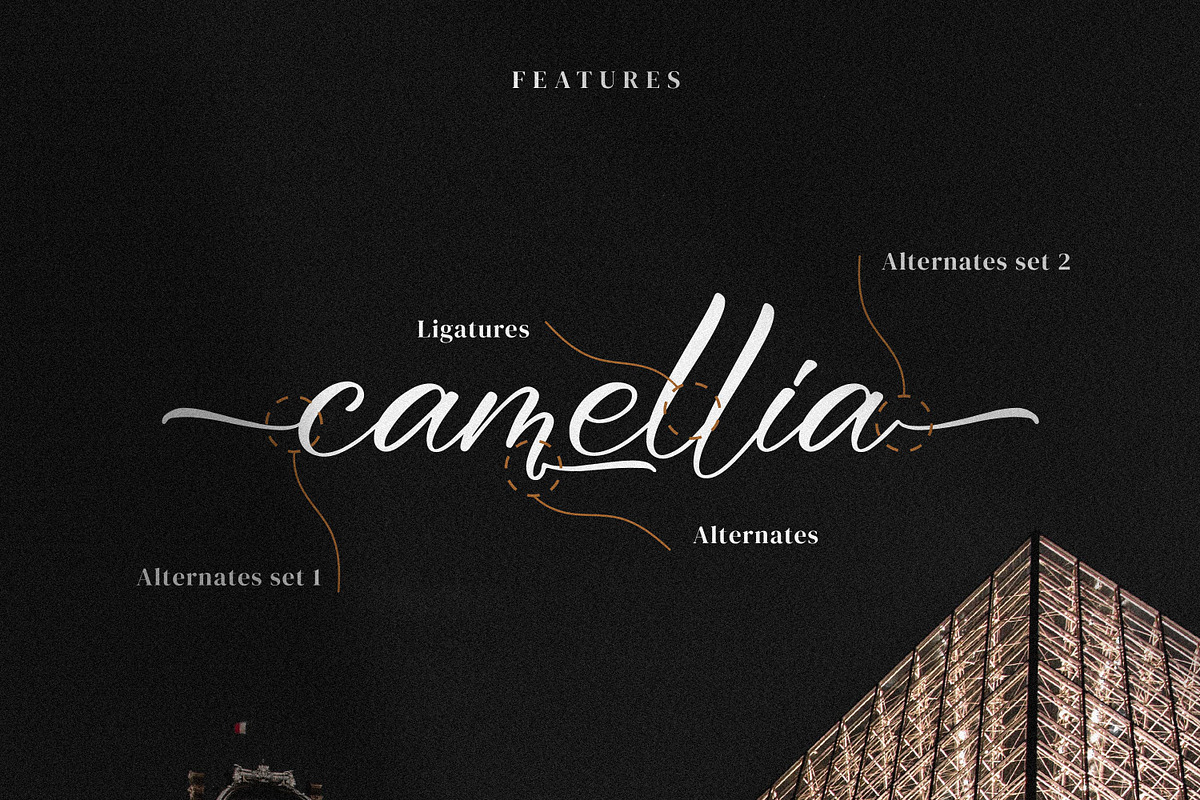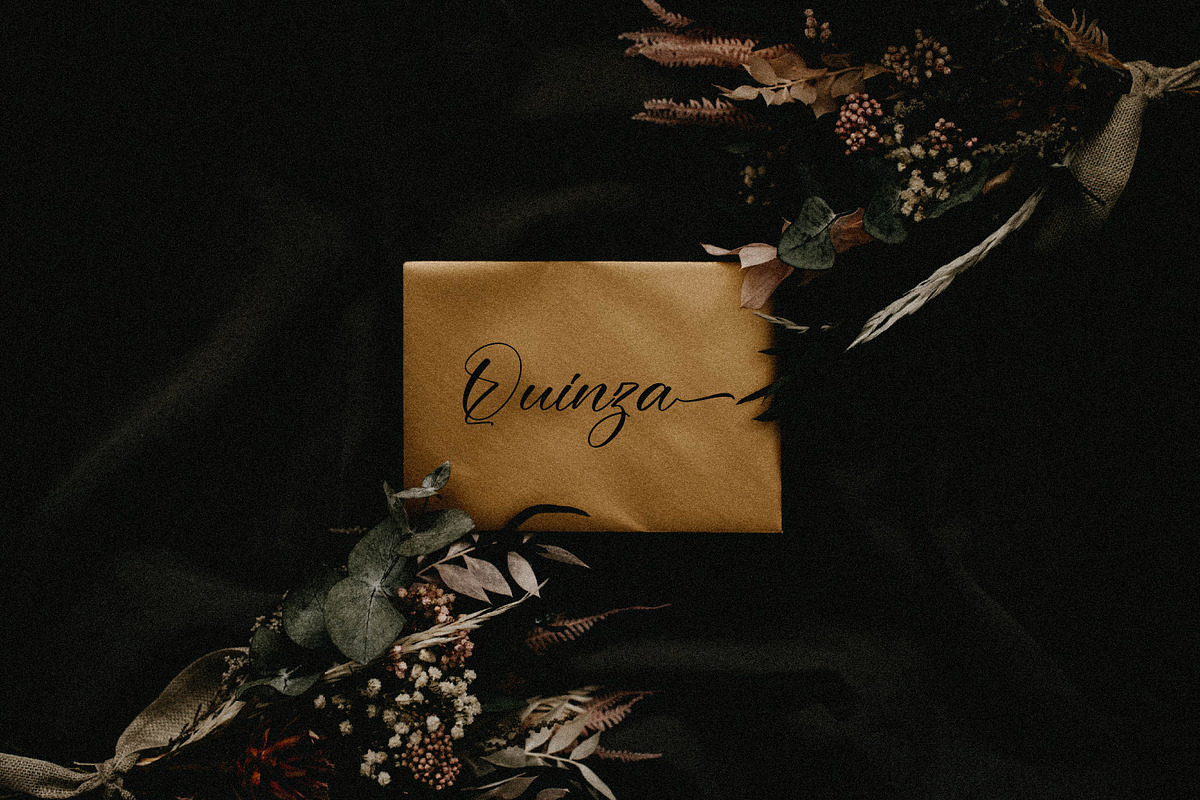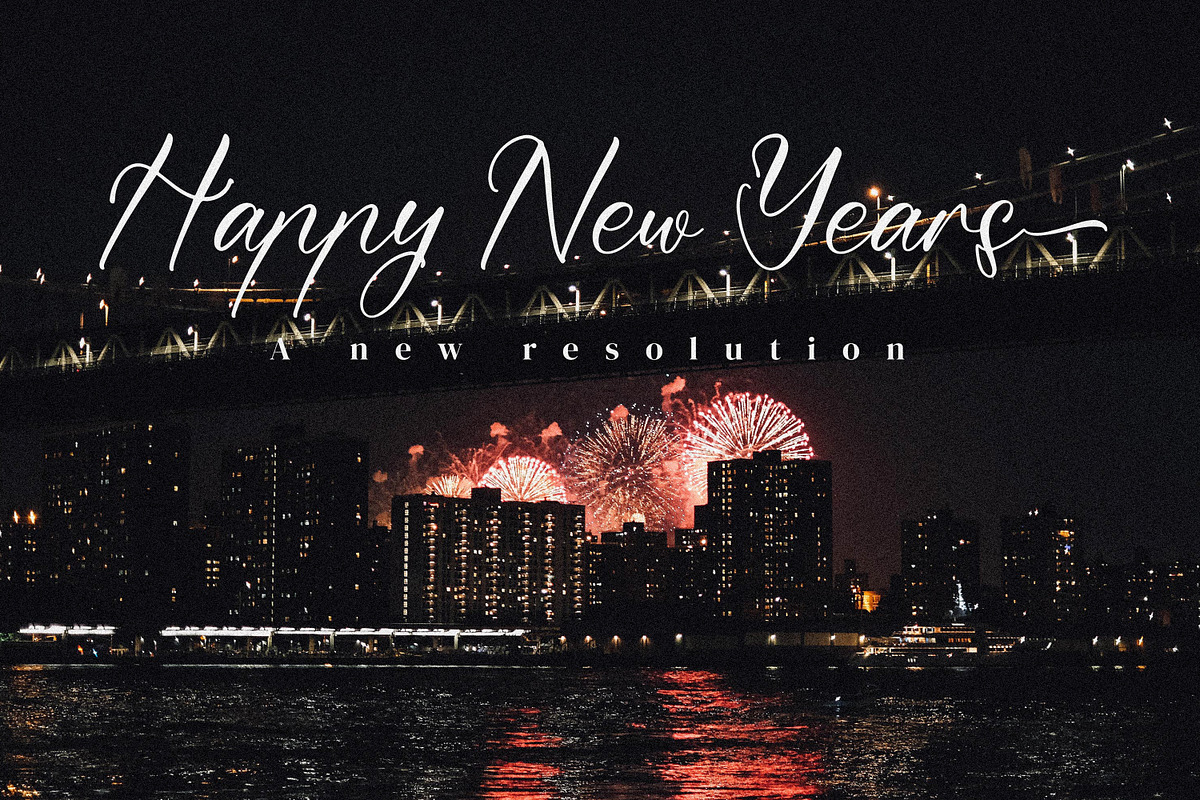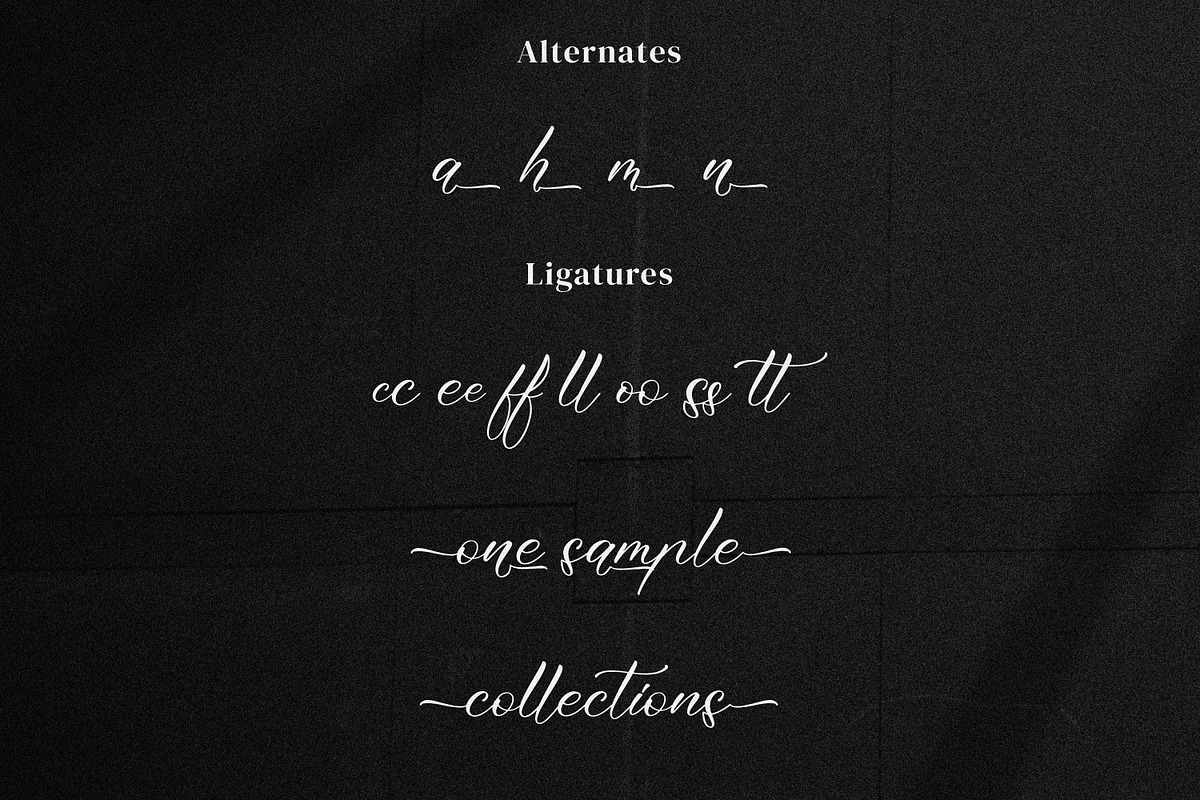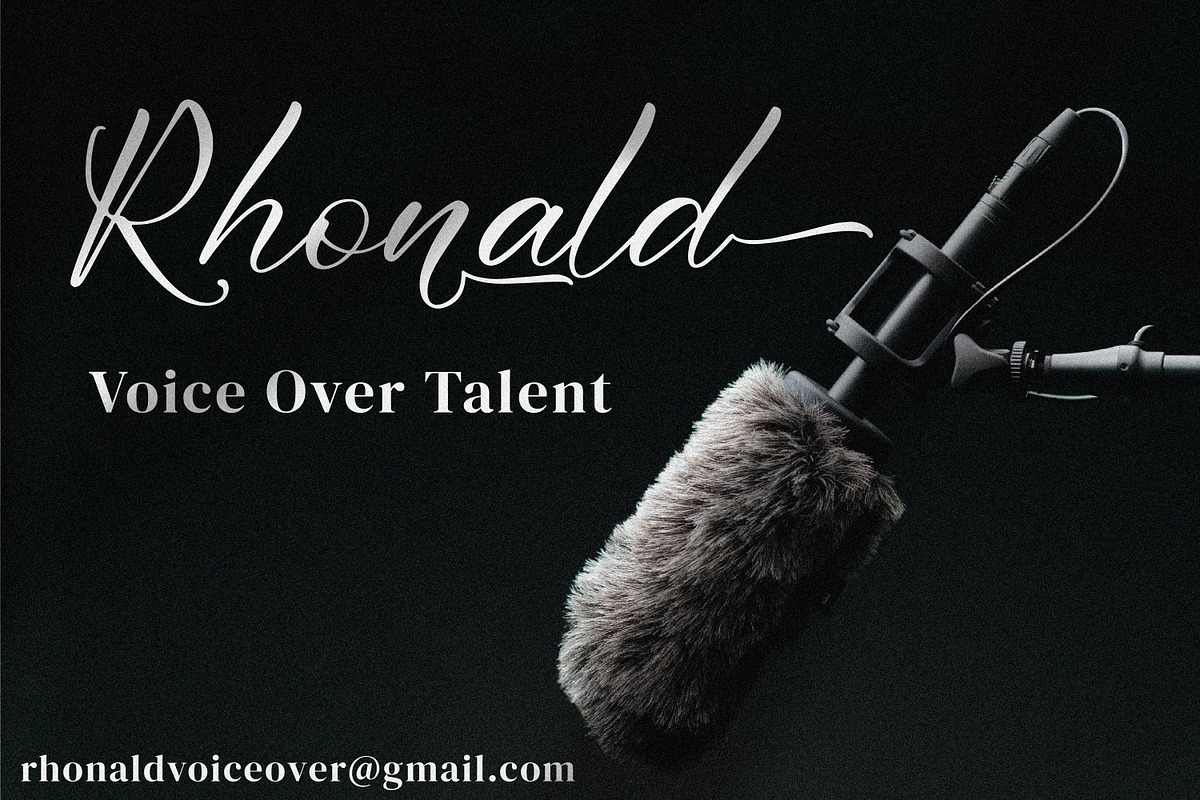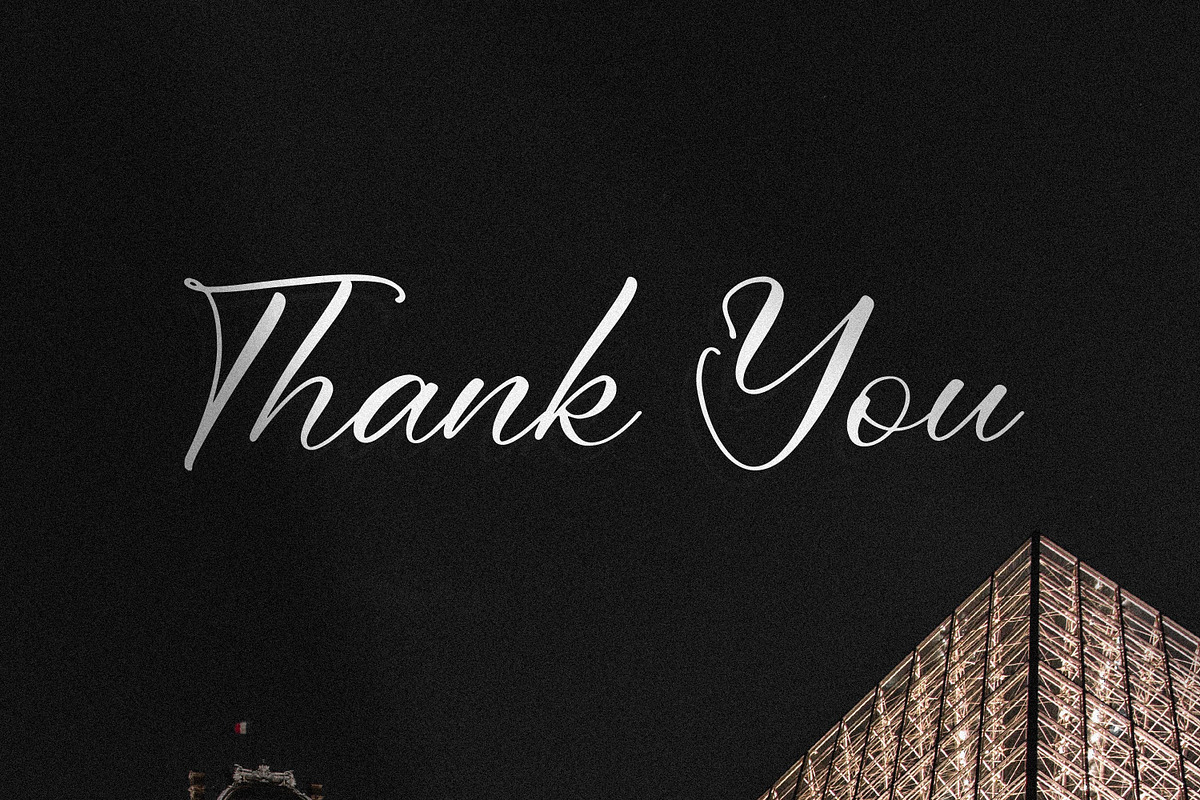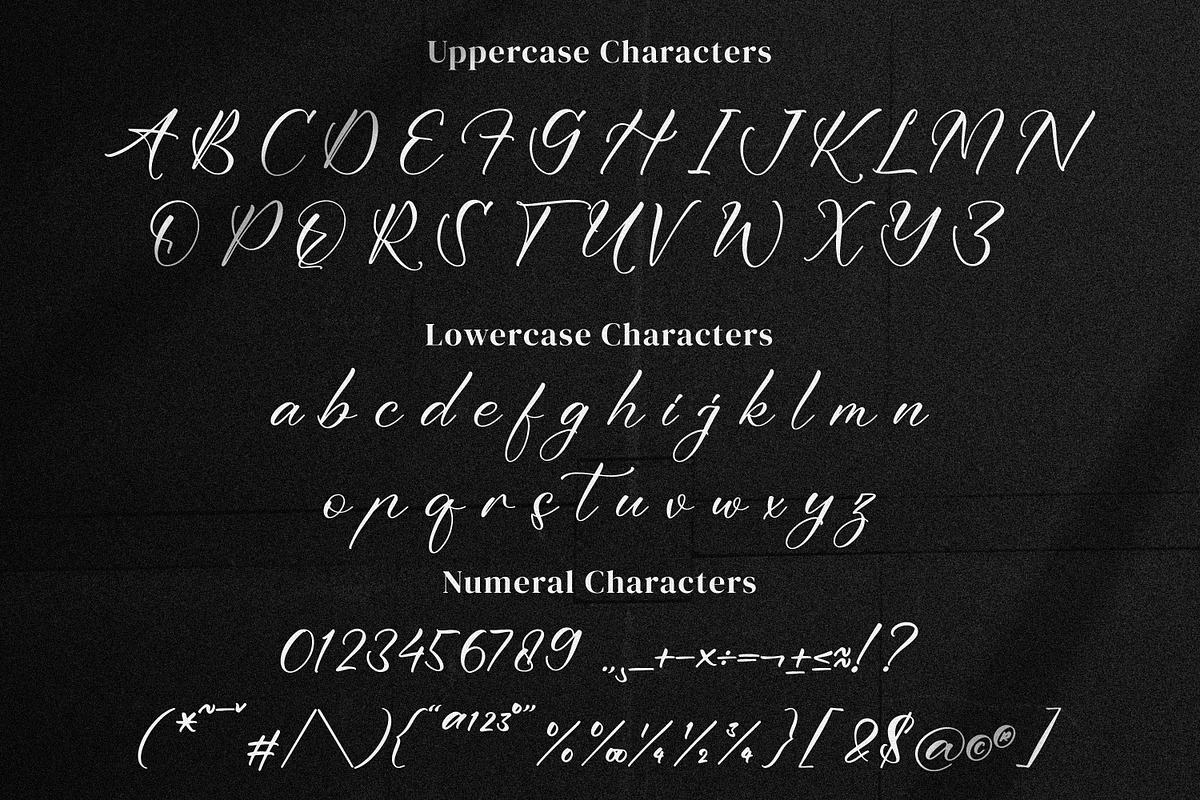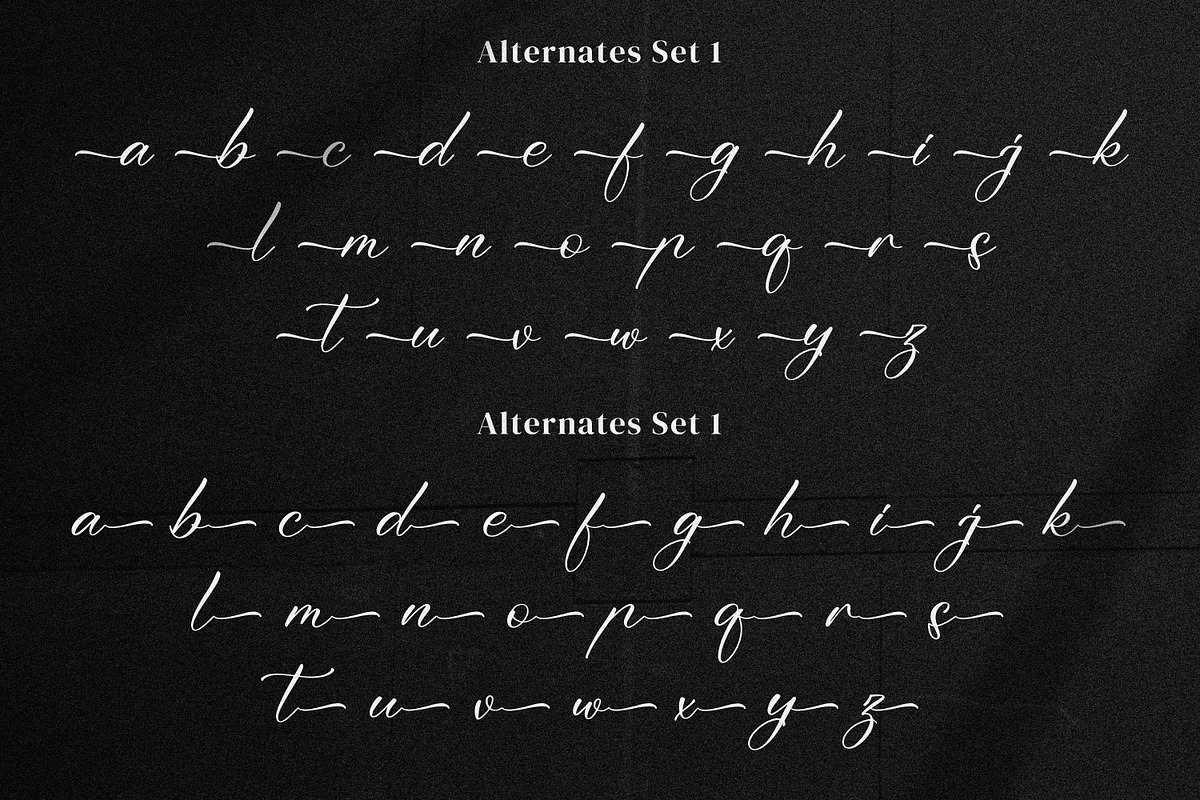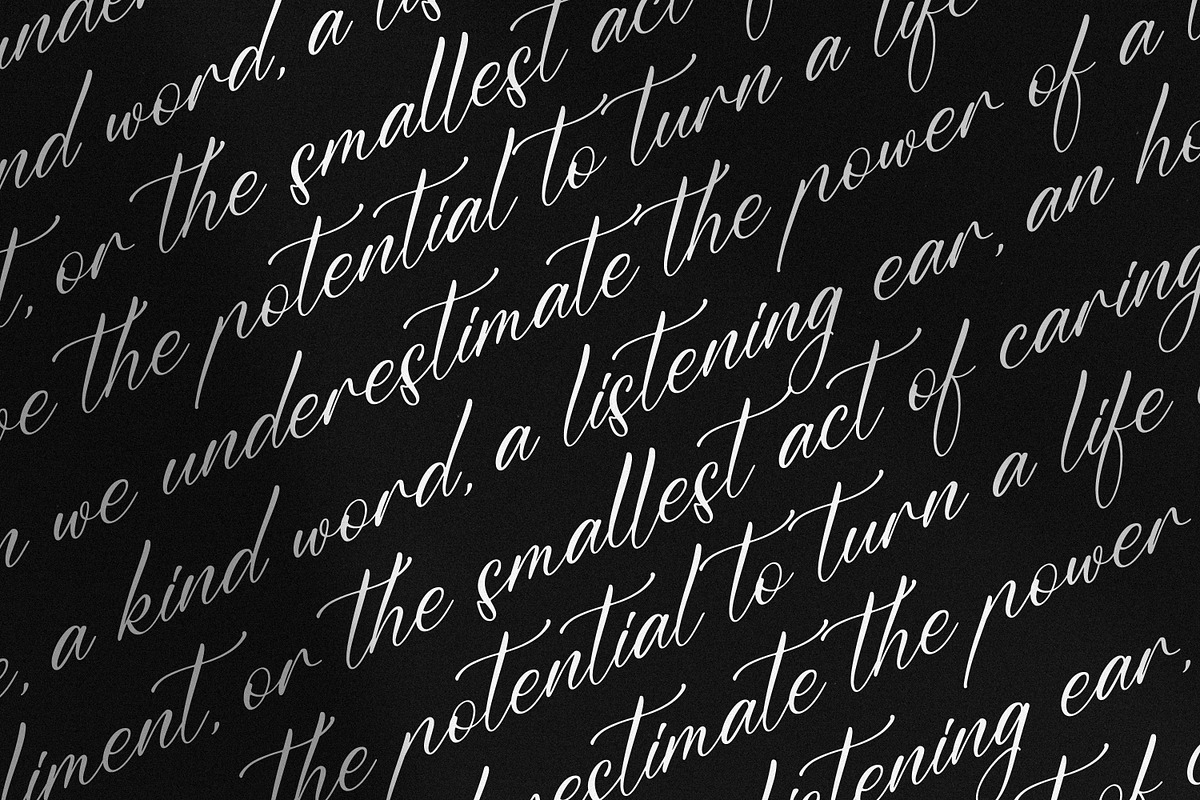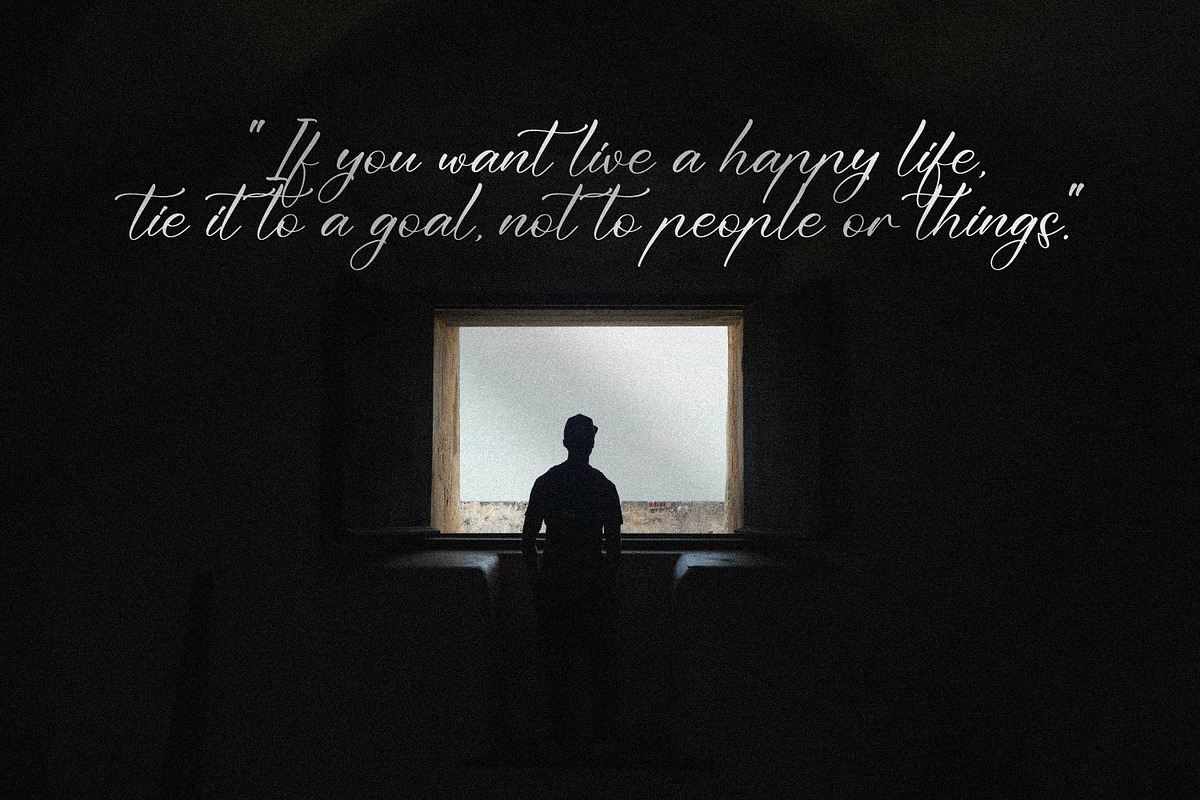
Bhineka Xuloeng
Bhineka Xuloeng - Handwritten Script Font, from Integritype Studio, is a premium Handwritten Script Font, perfect for any project like: logos, branding projects, homewares designs, product packaging, mugs, quotes, posters, shopping bags, t-shirts, covers books, business cards, invitation cards, greeting cards, labels, photography, watermarks, special events and all your other luxury projects that require a premium taste.
Ligatures, Alternatives & Swashes